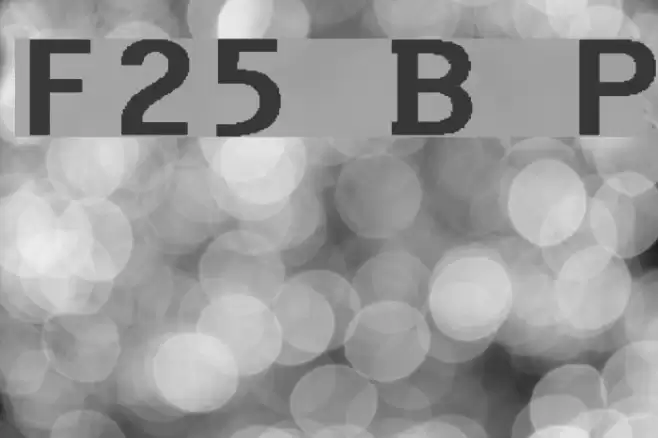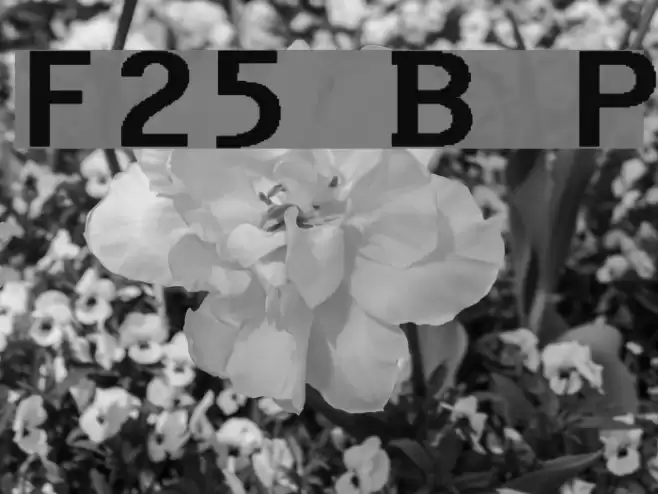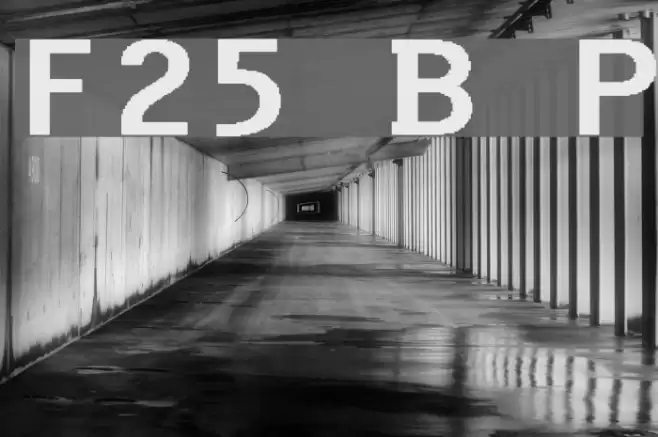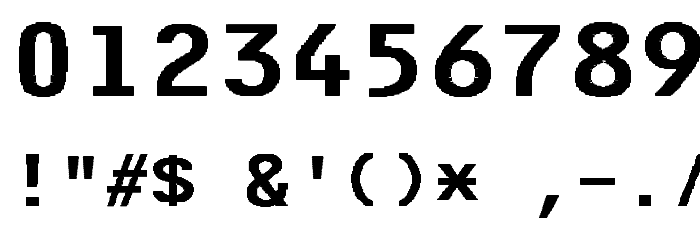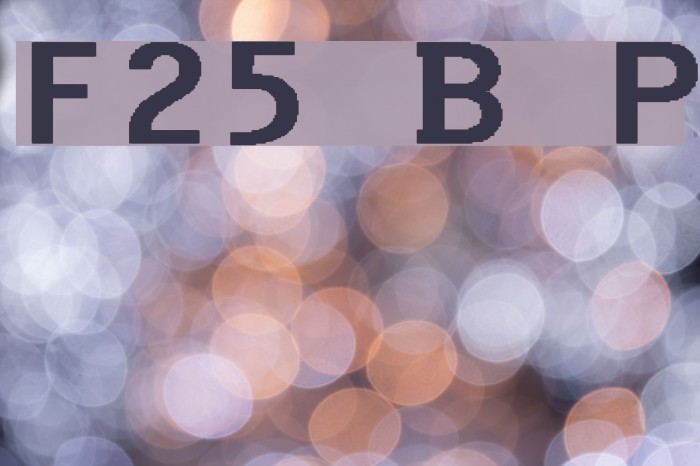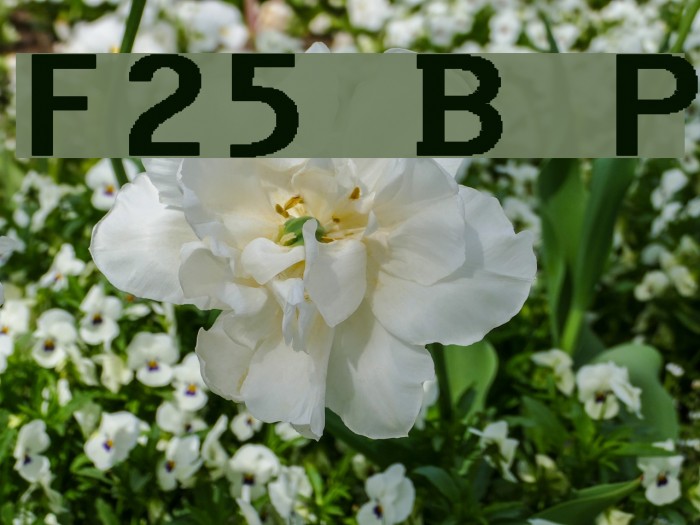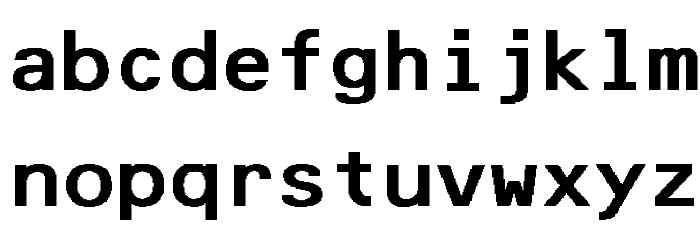
F25 Bank Printer Font
F25 Bank Printer Description
This font features a monospaced design, characterized by uniform character width, which is typical of typewriter and computer terminal fonts. The letters are bold and clear, with a mechanical and utilitarian aesthetic that emphasizes readability and functionality. The uppercase and lowercase letters maintain consistent proportions, contributing to a balanced and structured appearance. The numerals are distinct and easily distinguishable, making them suitable for data presentation. Special characters are straightforward and align well with the overall geometric style of the font.
A bold, monospaced font with a mechanical and utilitarian design from Uncategorized fonts.
- Proposed Projects: Ideal for coding environments, technical documentation, retro-themed designs, and any project requiring a clear, structured typeface.
- Use Case: Technical documentation, Coding, Data presentation